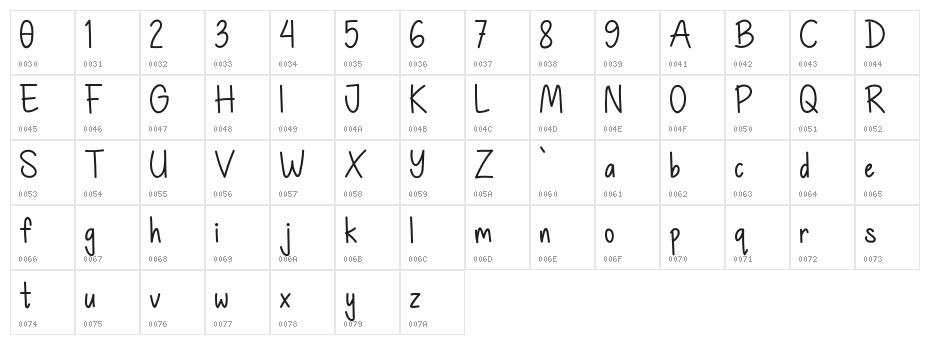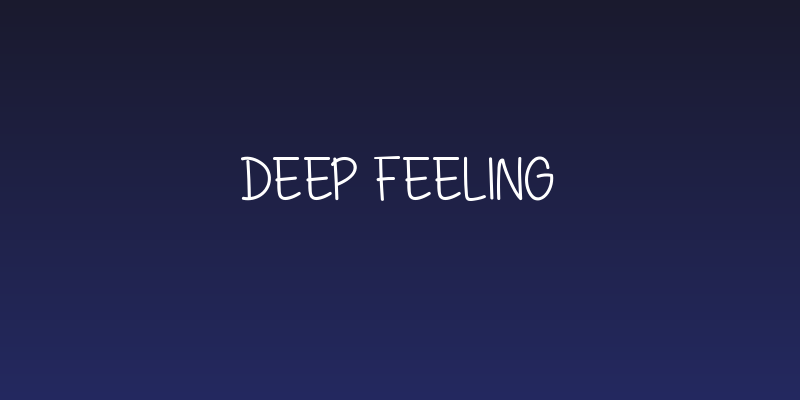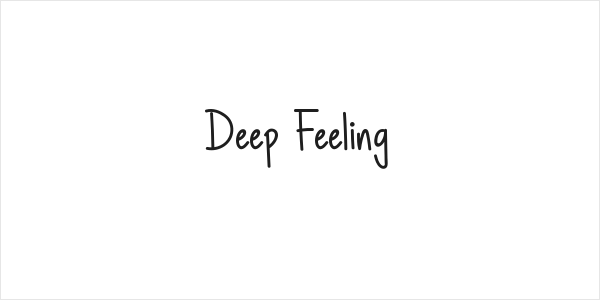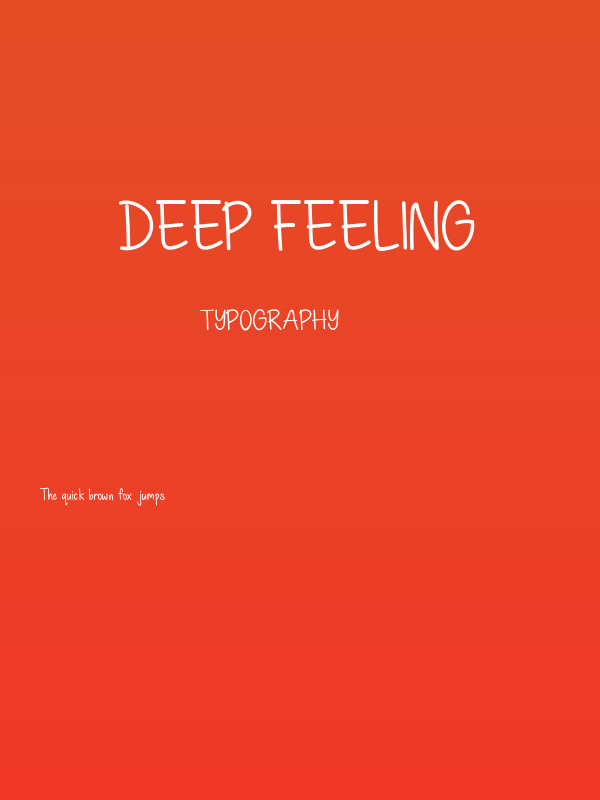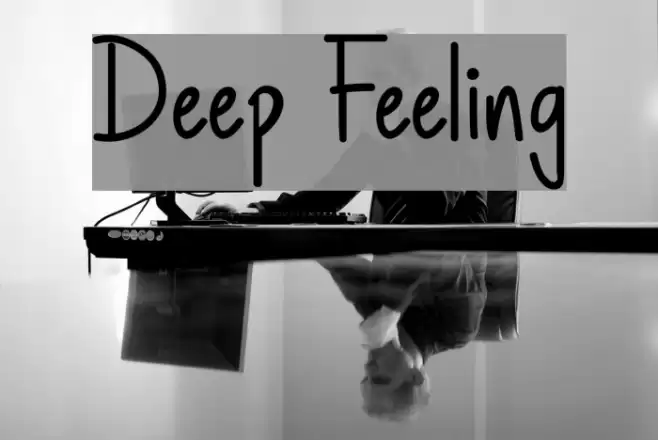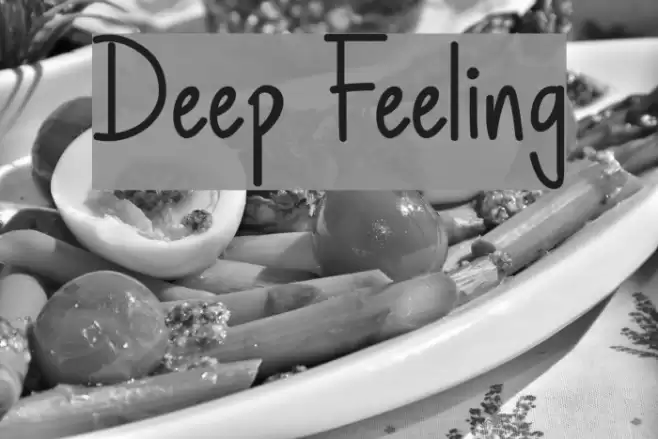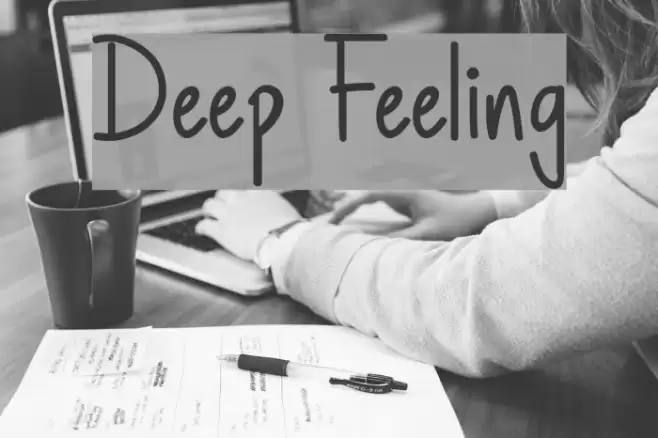
Deep Feeling Font
Deep Feeling Description
This font features a playful and casual handwritten style, characterized by its rounded and slightly irregular letterforms. The uppercase and lowercase letters maintain a consistent flow, giving a sense of movement and energy. The numerals are clear and easy to read, complementing the overall informal aesthetic. The font's strokes are uniform in thickness, providing a balanced appearance that is both approachable and friendly. Its unique charm makes it suitable for projects that require a personal touch, such as invitations, greeting cards, and creative branding.
| Overall Style | Casual |
| Use Case | Headlines, Logos, Invitations |
| Proposed Projects | Ideal for invitations, greeting cards, creative branding, and personal projects. |